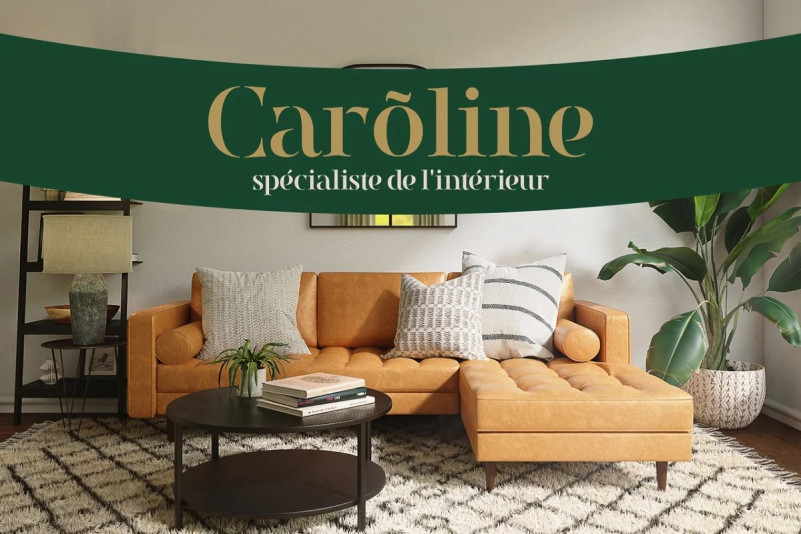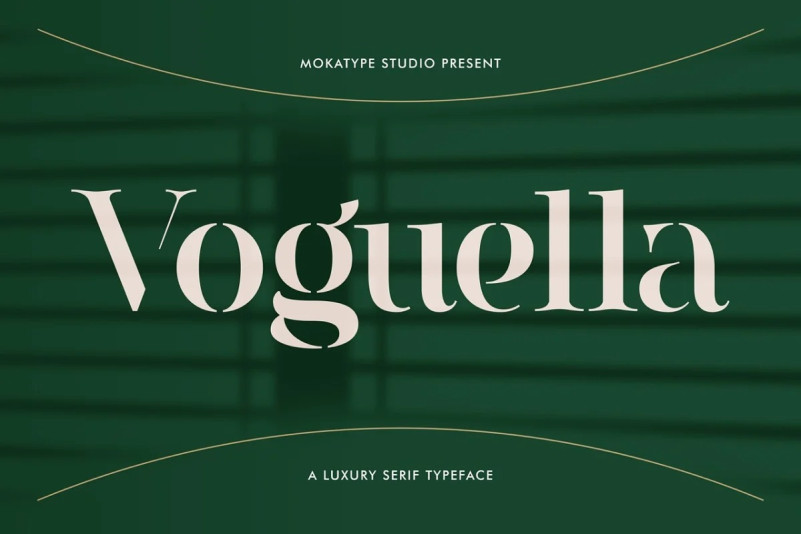
Voguella Font
Voguella Font – Luxurious Serif Display Font, is elegant, inspired by the famous Elegant logo, perfect for the purposes of designing templates, brochures, videos, advertising branding, logos, and more. Perfect for adding a unique twist to word-mark logos, monograms, or pull quotes. What’s Included :